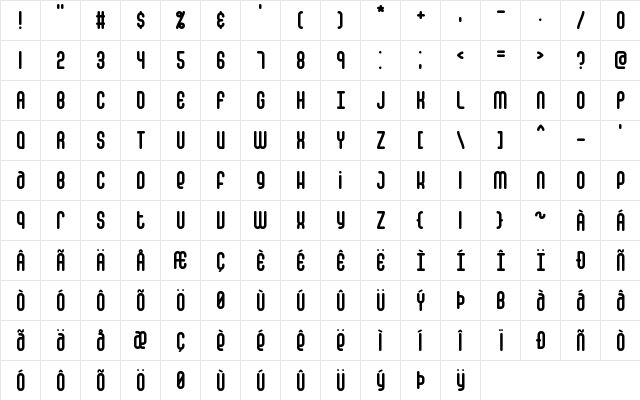
False Positive Round BRK Normal Font Preview
False Positive Round BRK Normal
False Positive Round BRK Normal Font Details
| Foundry | ƎIGMA FONTS |
| Designer | ƎIGMA FONTS - Brian Kent |
Design Context for False Positive Round BRK Typeface
False Positive Round BRK uses gentle rounded endings to create a warm, inviting typographic personality — less corporate than geometric sans, more refined than playful display fonts.
Well-suited to UI design, mobile interfaces, and any brand that wants approachability without sacrificing clarity.
Font Pairing: Pairs well with a rounded or humanist sans for body copy, maintaining the friendly tone without relying on False Positive Round BRK to carry extended reading.
Pro Tip: Use False Positive Round BRK for UI elements, app interfaces, and anywhere a friendly, approachable tone needs to be maintained without sacrificing clarity.